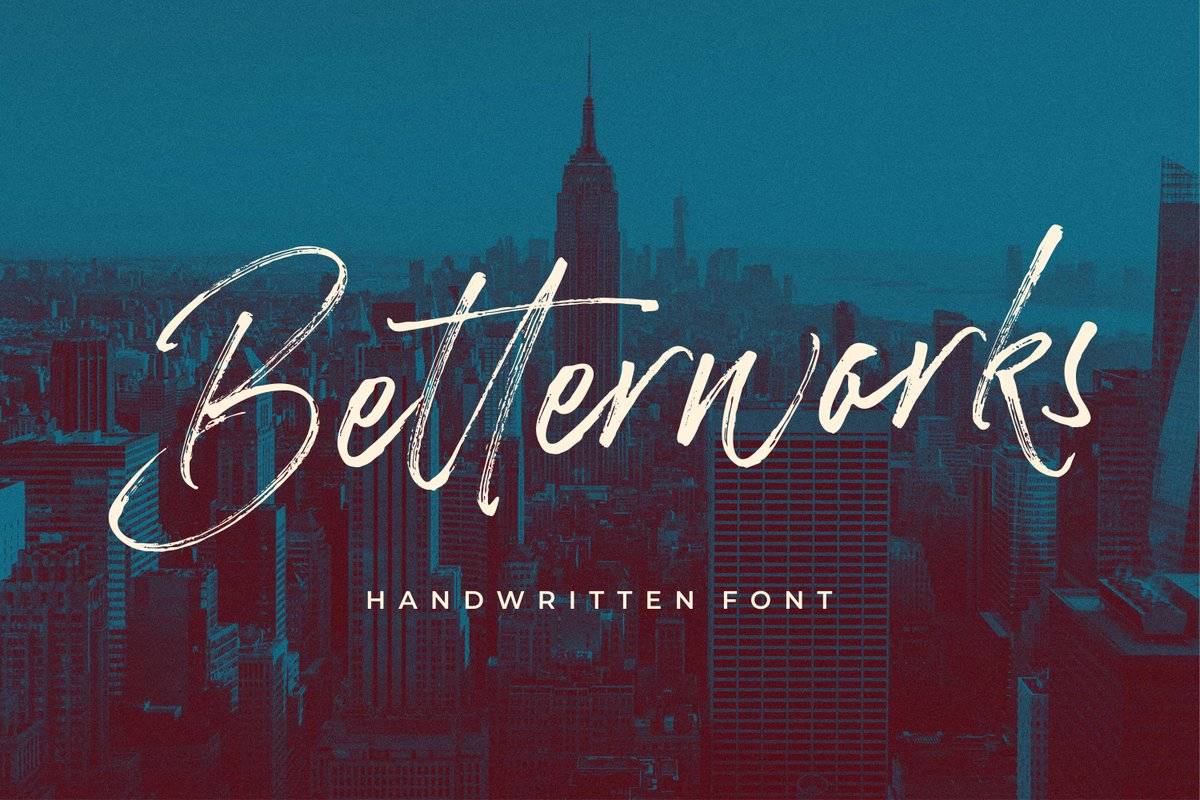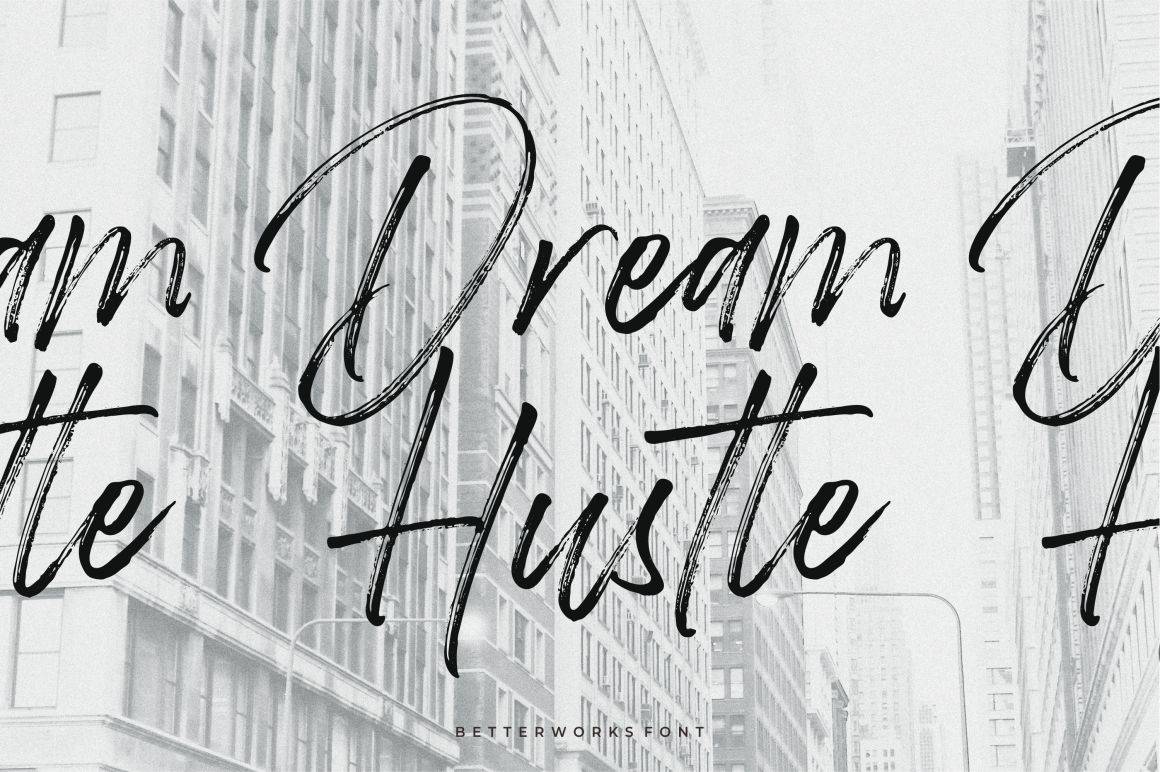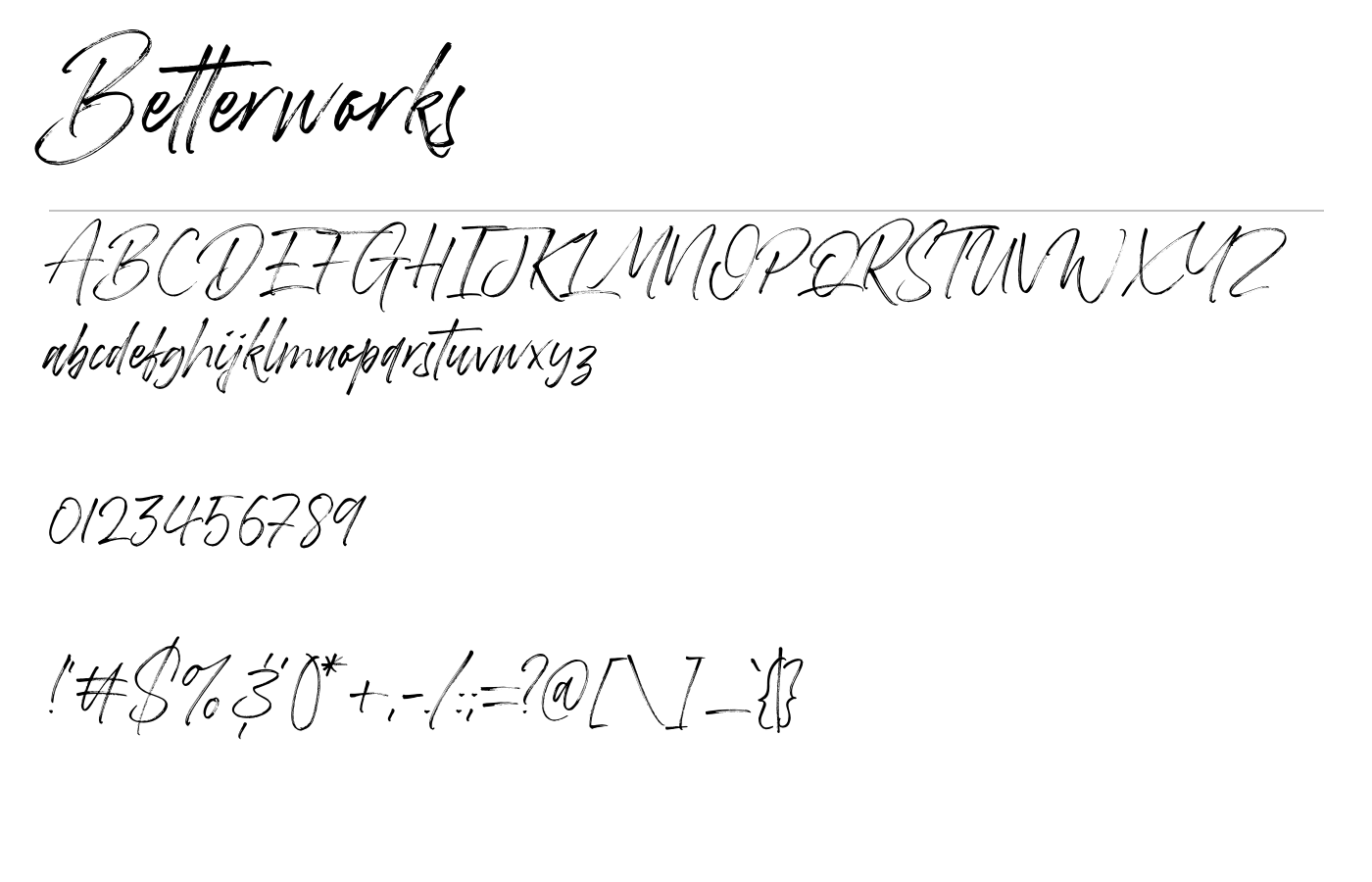
Betterwork Script Demo is a dynamic, handwritten script font with a stylish, rough textured appearance that adds an artistic and personal touch. Its tall, fluid letterforms with varied stroke weights give it an elegant yet casual feel, perfect for creative branding, invitations, and expressive headlines that need a unique, handcrafted vibe. This font works well when you want to convey creativity and individuality with a modern, stylish flair.
Betterwork Script Demo Font
About Betterwork Script Demo Font